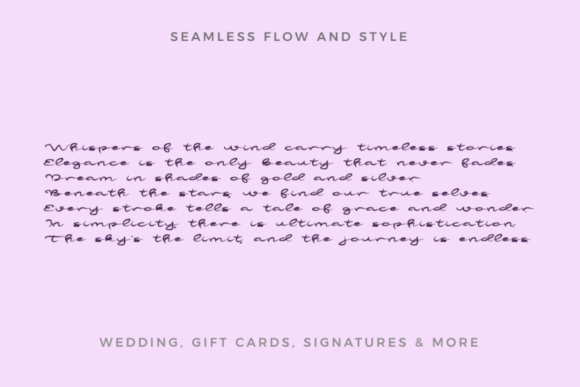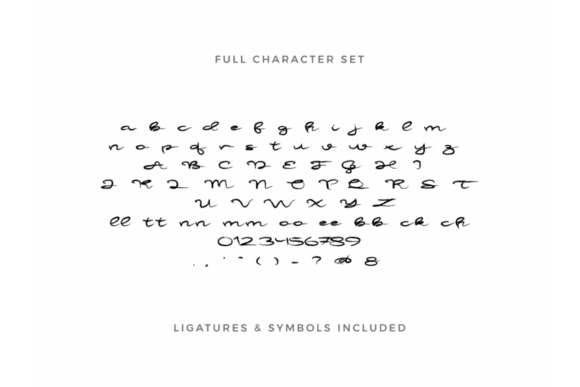
Introduction to Hafwen Font
Introducing Hafwen, a truly distinct font that beautifully marries the charm of handwritten script with the elegance of hand-lettering.
This script font, brimming with lovely curves and unique characteristics, brings an underlying sweetness and personal touch to every design it graces Hafwen offers a boutique-like feel that captures the essence of artistic handwriting, making it ideal for creating captivating logos, captivating headlines, and heartfelt personalized messages.